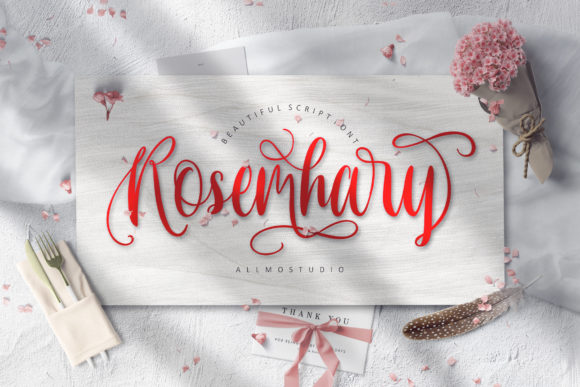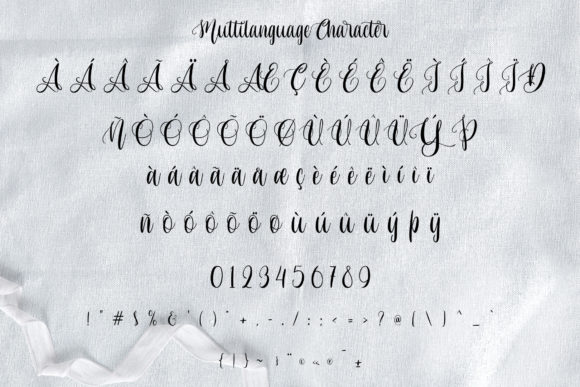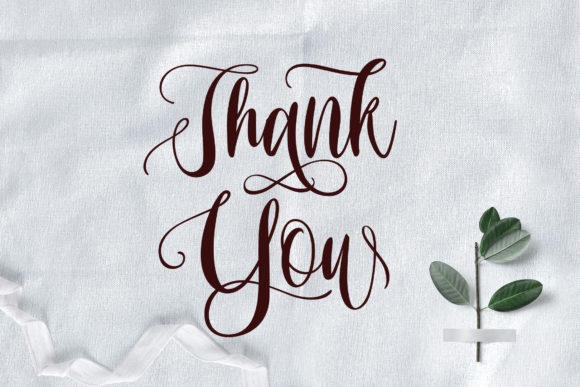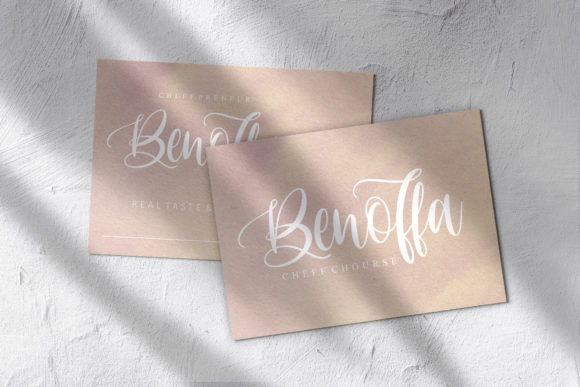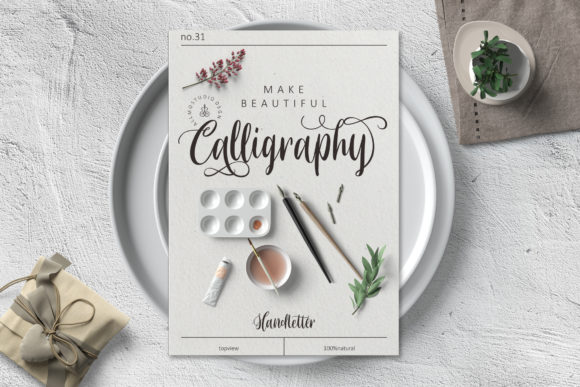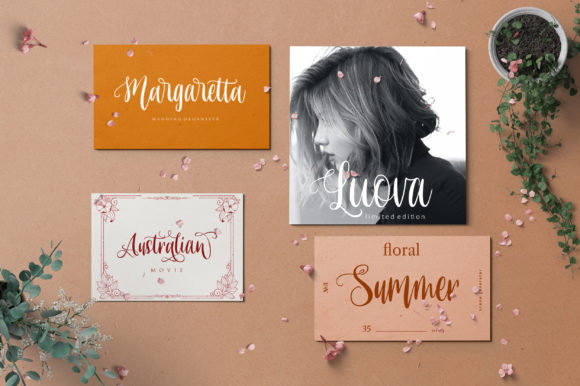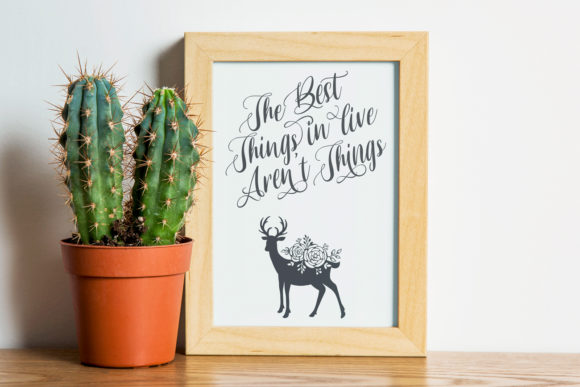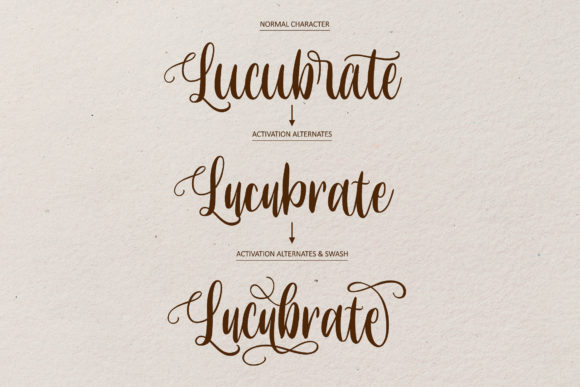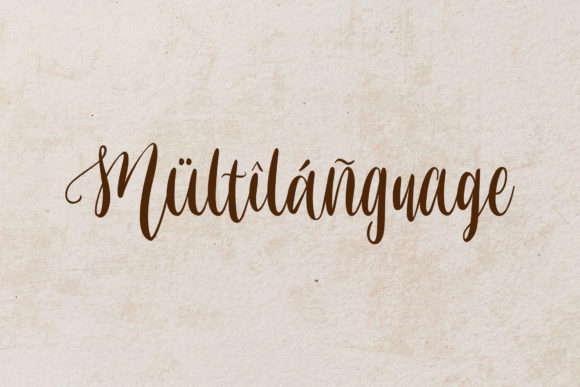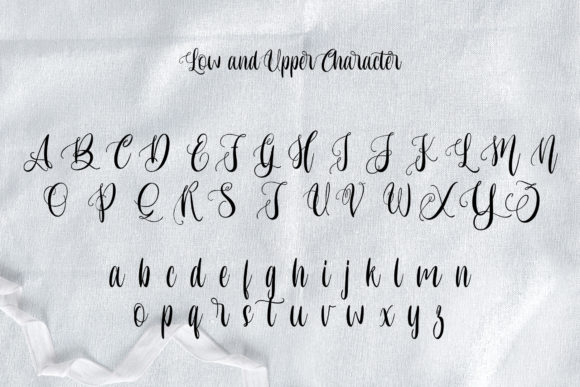
HomeScript FontsRosemhary Font Script Fonts Rosemhary Font FacebookXPinterestWhatsApp Rosemhary Font Poster 2 Rosemhary Font Poster 3 Rosemhary Font Poster 4 Rosemhary Font Poster 5 Rosemhary Font Poster 6 Rosemhary Font Poster 7 Rosemhary Font Poster 8 Rosemhary Font Poster 9 Rosemhary Font Poster 10 Rosemhary Font Poster 11 About Rosemhary Font Rosemhary is a lovely script font with a romantic style. Fall in love with its flowing curves! DOWNLOAD ON CREATIVE FABRICAThis font is sold and delivered by Creative Fabrica. Font Canyon may earn a commission if you buy through this link. People also explored Amira Font Butter Font Aglaonema Font Overmind Font Museo Sans Cyrillic Blade Font Rainy Day Font Simple and Humble Font Abcd Cursive Dotted Lined1 Font 289 0 TagsRosemhary Font Previous articleKip & Val FontNext articleHeadlight Font LEAVE A REPLY Cancel reply Comment: Please enter your comment! Name:* Please enter your name here Email:* You have entered an incorrect email address! Please enter your email address here Website: Save my name, email, and website in this browser for the next time I comment. Personal Use Free Remember Personal Use Free Read more about this font Sushi Day Personal Use Free Read more about this font Dolce Vita Personal Use Free Read more about this font Deling Personal Use Free Read more about this font BLOG Exploring Font Trends Shaping Communication in the Digital Era Fonts, like all design elements, are subject to trends. They play a crucial role in communicating a brand's personality,... Transform Your Website: Elevate Your Typography with 7 Best Web Font Generators How to Install and Use Fonts on Windows, macOS, and Web Projects Best Fonts for YouTube Videos: Make Your Thumbnails Stand Out